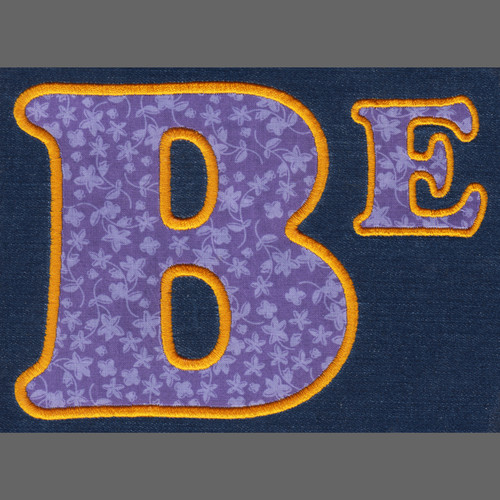
740 Cooper Black Satin Applique Font
740 Cooper Black Satin Applique Font comes in 2", 3", 4", 5", 6" & 7" heights based on the capital "A". All sizes feature uppercase letters, lowercase letters, numbers and ten punctuation marks. All characters are finished in standard Satin Stitch Applique with downloadable instructions.